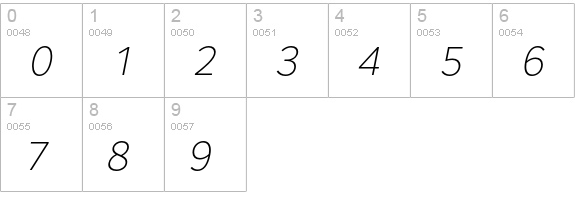
Core Sans A 25 ExtraLight Italic Font Details
Core Sans A 25 ExtraLight Italic is an airy, ultra-refined, italic variant in the Core typeface family \xE2\x80\x94 well suited to minimalist headlines and refined display use.
Core Sans A 25 ExtraLight Italic font is a sleek and modern typeface that exudes elegance and sophistication. With its delicate strokes and slight slant, this font is perfect for adding a touch of refinement to your design projects. The ExtraLight weight gives it a subtle and airy appearance, making it ideal for creating a sense of lightness and grace. Not only does Core Sans A 25 ExtraLight Italic font offer a stylish and contemporary look, but it is also freely available to download at FontsMarket.com. This means you can easily access this beautiful font and incorporate it into your designs without any hassle. Whether you're working on a branding project, website design, or any other creative endeavor, Core Sans A 25 ExtraLight Italic font is sure to elevate your work with its understated charm and sophistication.